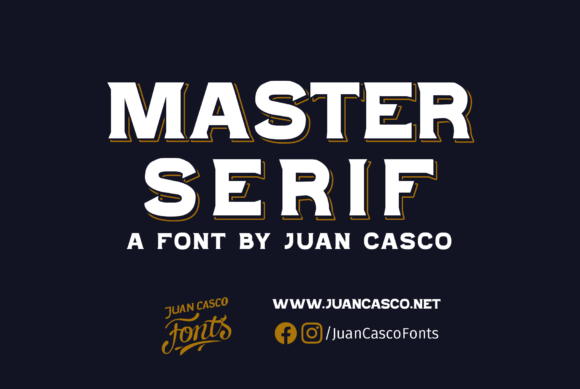
Step into a world of timeless elegance and embark on a typographic journey with Master Serif, a font family that radiates vintage charm and sophistication. Crafted by the visionary Juan Casco, Master Serif is a serif font that captivates with its playful nostalgia and undeniable retro appeal.
Awaken your creativity and let Master Serif transport your designs to an era of classic beauty. This font family possesses an inherent ability to evoke a sense of longing for simpler times, making it the perfect choice for projects that seek to infuse a touch of history and timeless allure.
With Master Serif, your designs will exude an air of distinction, whether you're creating eye-catching book covers, elegant branding materials, or heartfelt wedding invitations. Its delicate serifs and graceful curves dance harmoniously across the page, inviting readers to immerse themselves in the narrative you weave.
Immerse yourself in the versatility of Master Serif, a font family that effortlessly adapts to a myriad of design endeavors. Its timeless character lends itself seamlessly to both traditional and contemporary aesthetics, making it a versatile asset for designers of all skill levels.
Unleash your imagination and let Master Serif breathe life into your creative visions. Its nostalgic charm will elevate your designs to new heights, captivating audiences with its timeless beauty and undeniable elegance. Embrace the allure of Master Serif and embark on a typographic adventure that will leave an indelible mark on the hearts and minds of your readers.